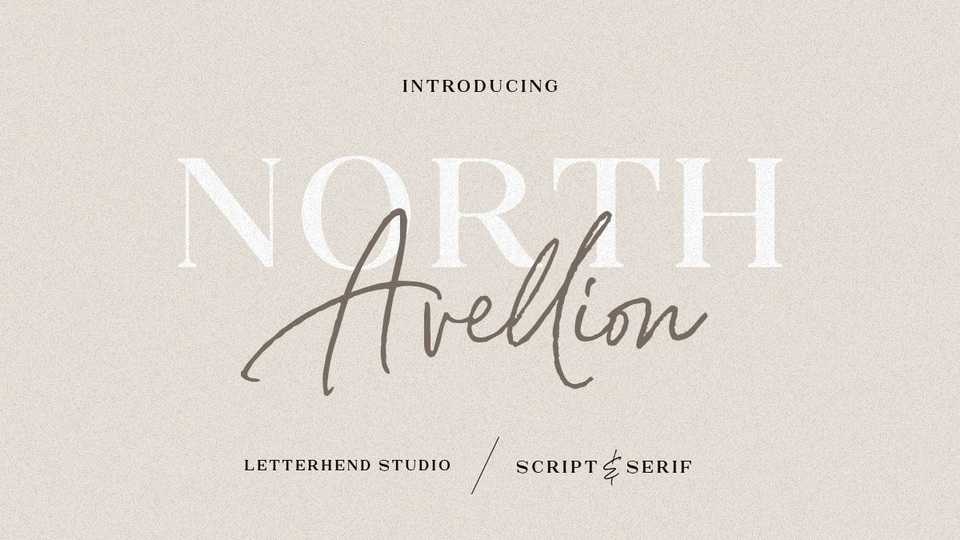
Download North Avellion font, a perfect pair of an elegant serif and stylish script. North Avellion typeface has classic style yet still looks great for modern design.